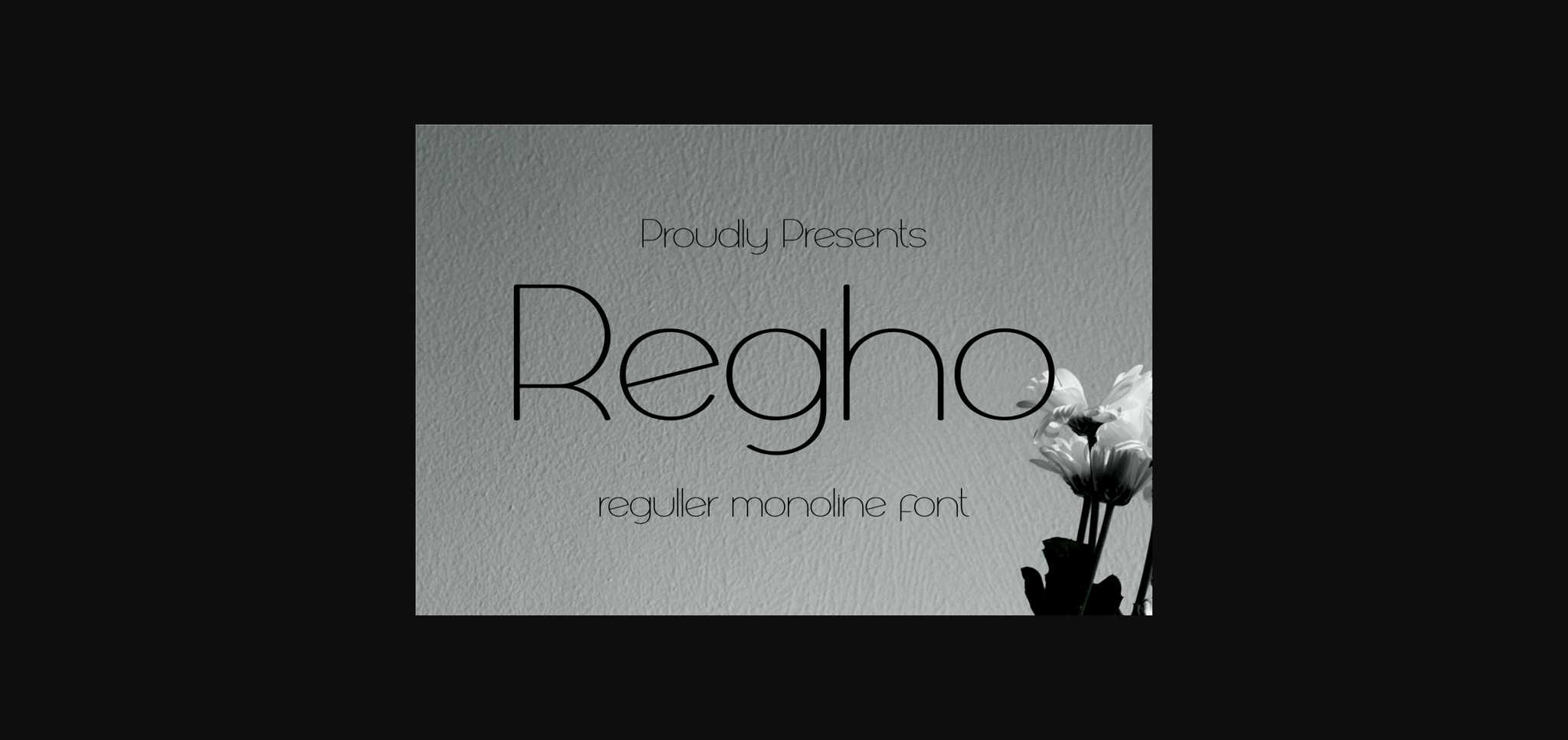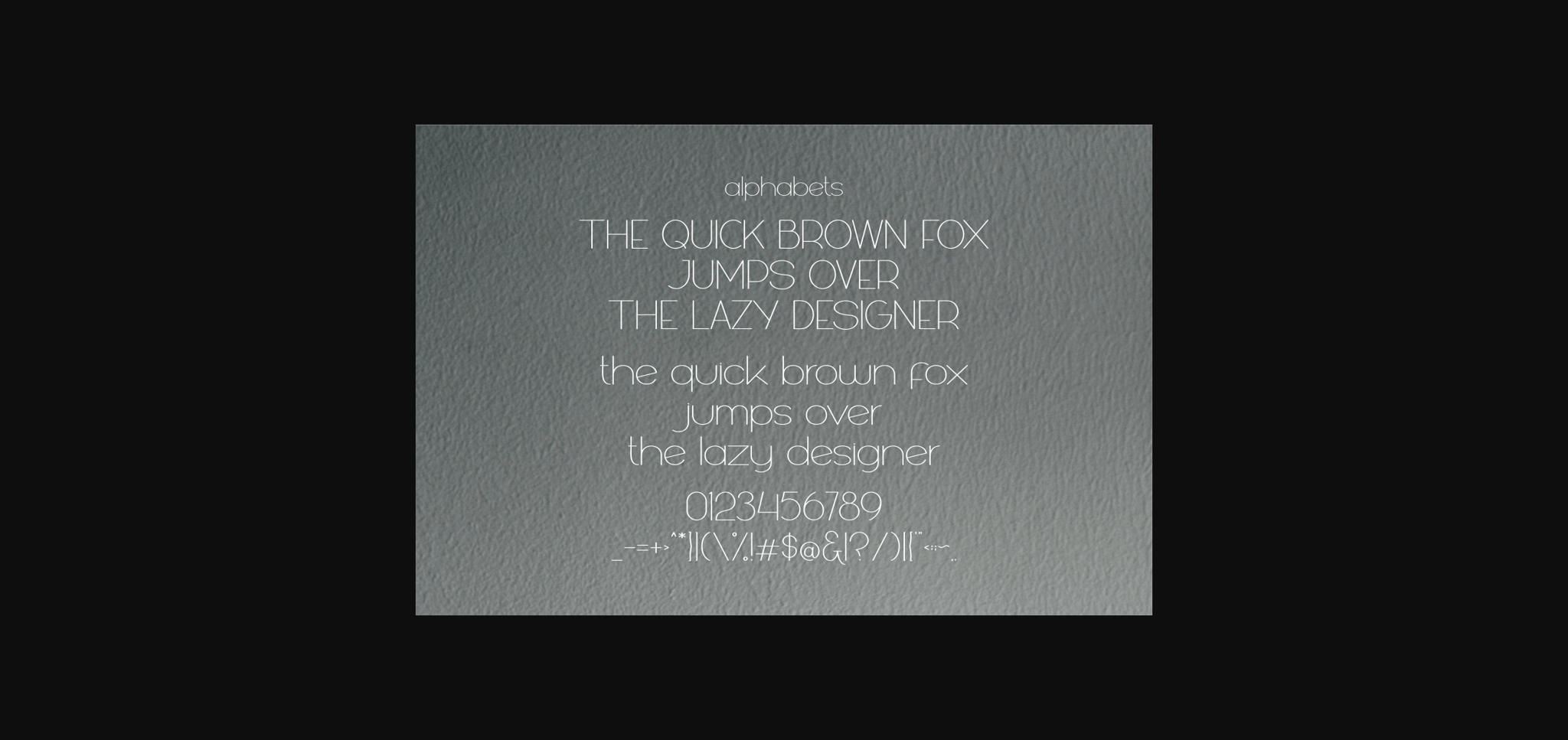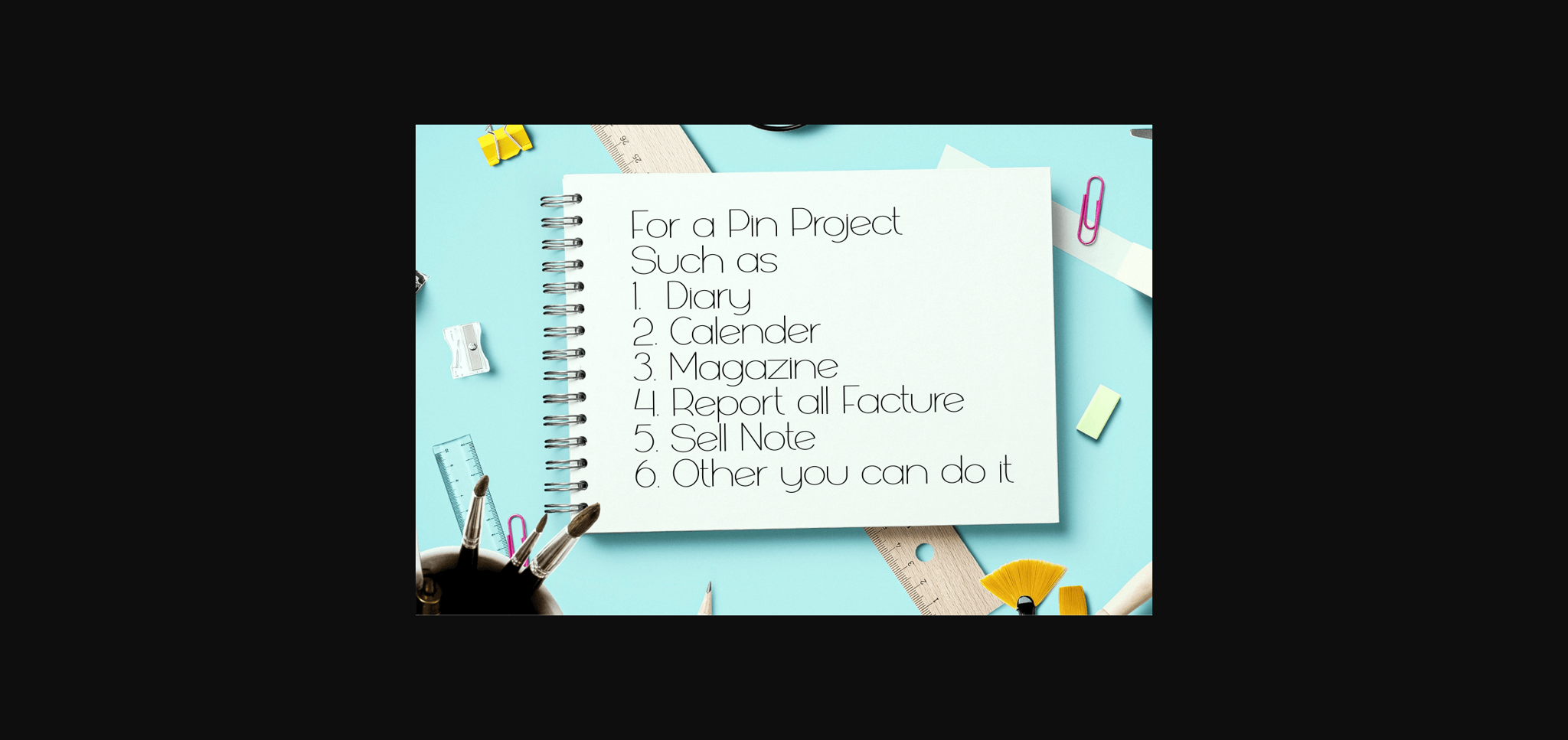
About Regho Font
Regho is a practical and elegant sans serif font with gracefully thin curves and a soft, familiar, and easy-to-read look.
This typeface is suited for large writing needs, starting from daily activity notes, magazines, newspapers, and the composition of any product that requires a lot of writing.